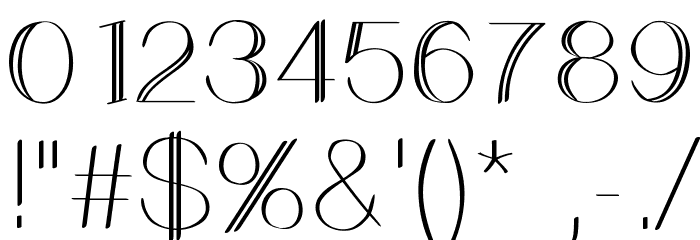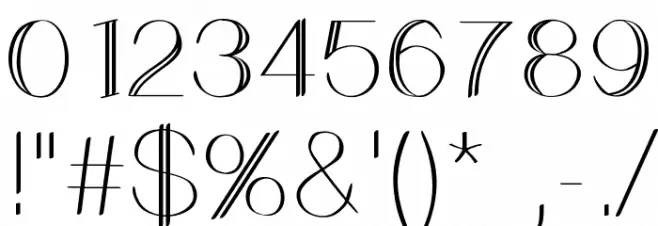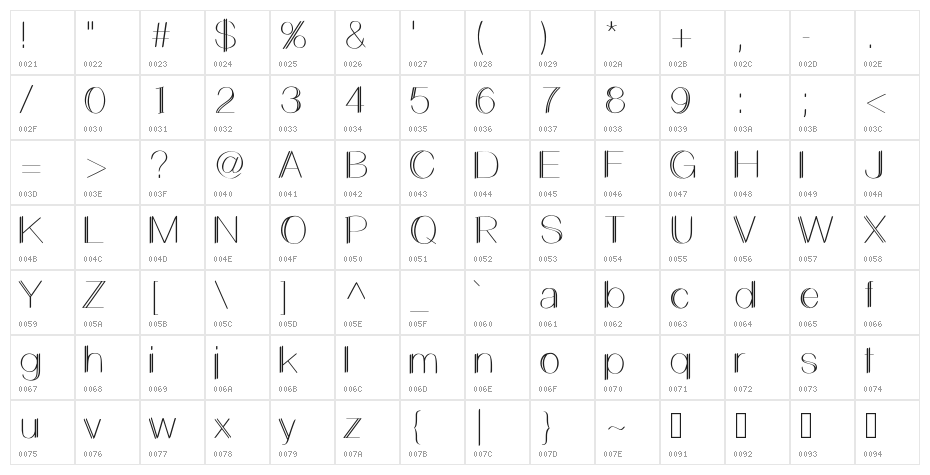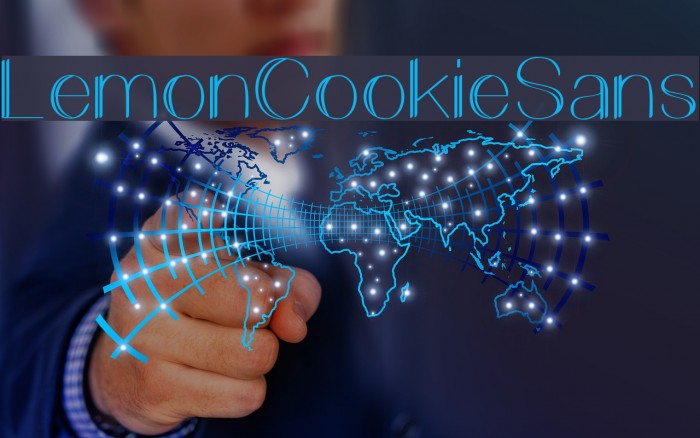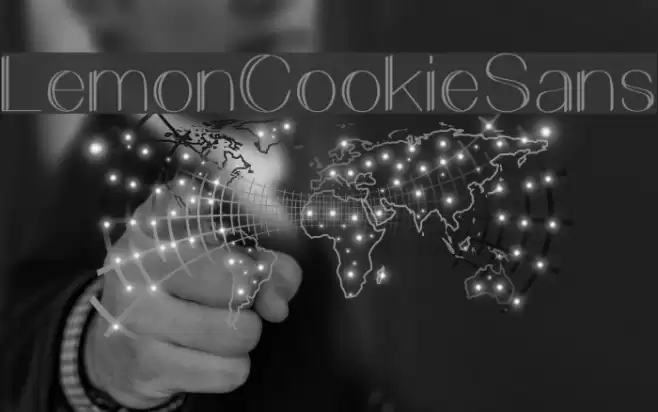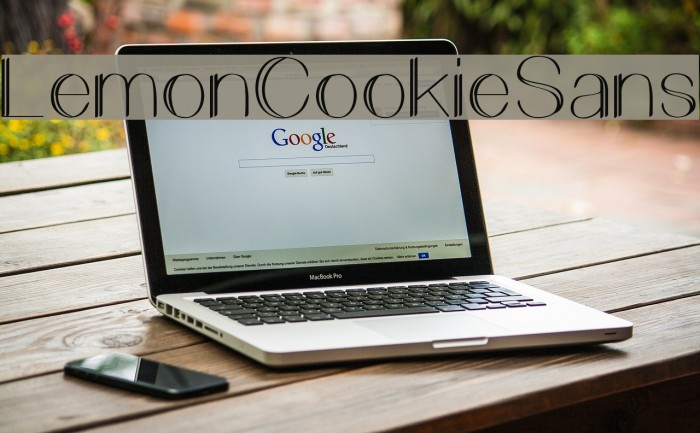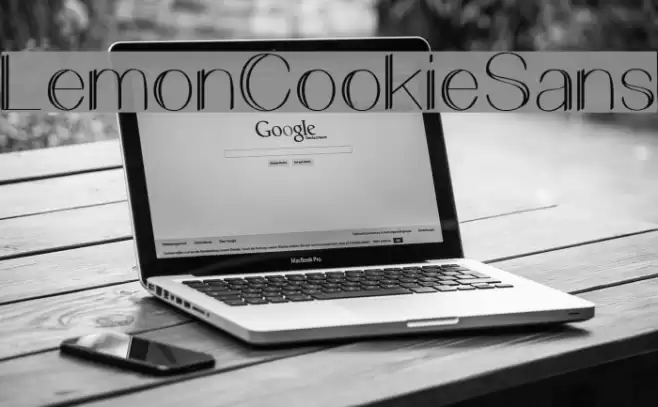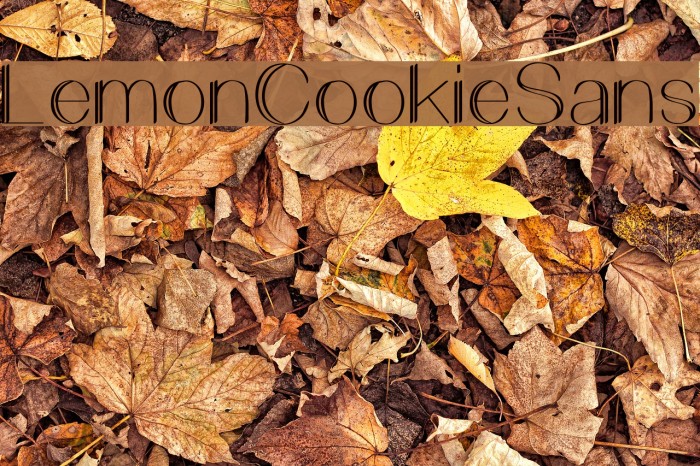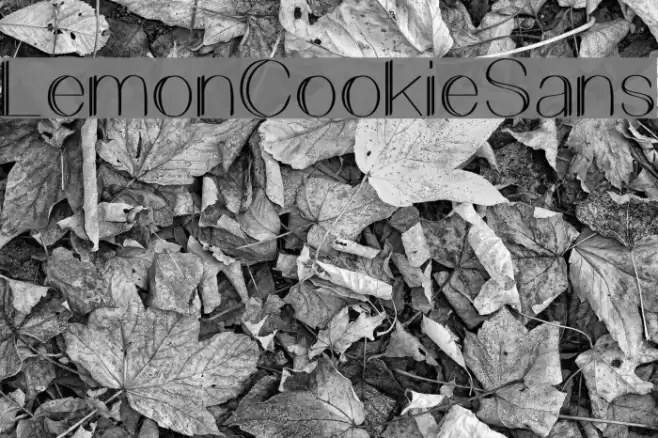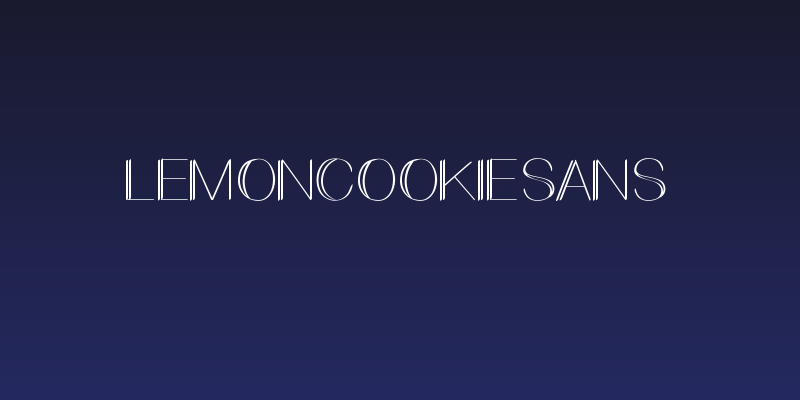
LemonCookieSans Font
LemonCookieSans Description
This font features a unique and modern design with a geometric and linear aesthetic. The characters are composed of thin, elongated strokes that create a sense of elegance and sophistication. The uppercase letters are tall and narrow, while the lowercase letters maintain a consistent style, offering a harmonious balance. The numerals are distinct and clear, making them easily readable. Special characters are designed with the same attention to detail, ensuring consistency across the entire typeface. This font's clean and sleek appearance makes it suitable for contemporary design projects.
| Proposed Projects | Ideal for branding, editorial design, fashion magazines, and modern web design. |